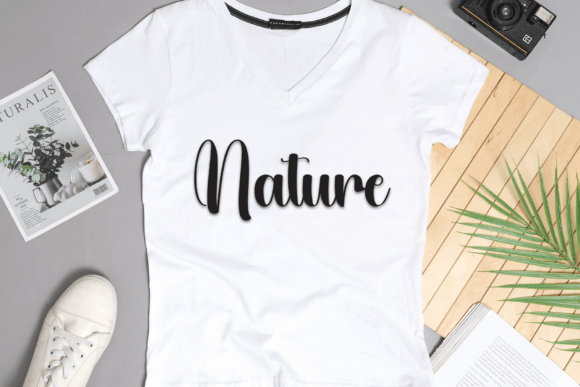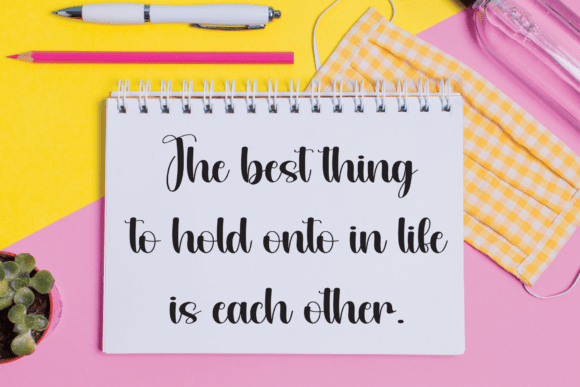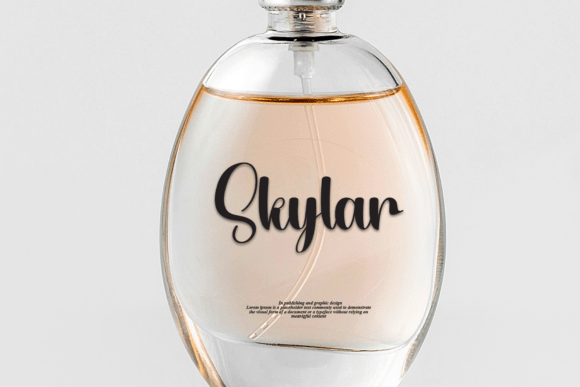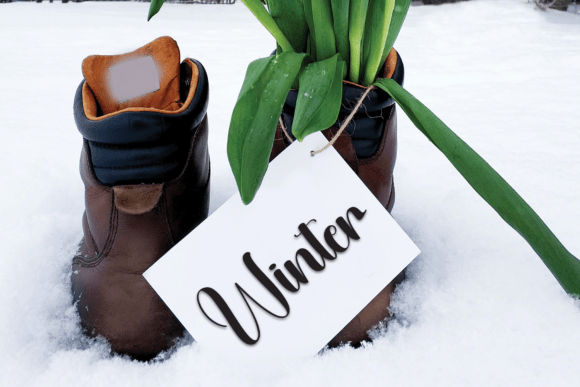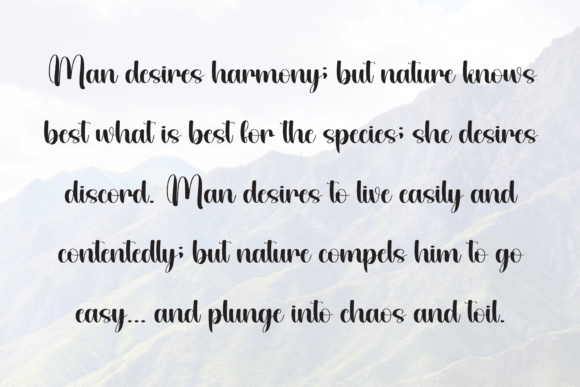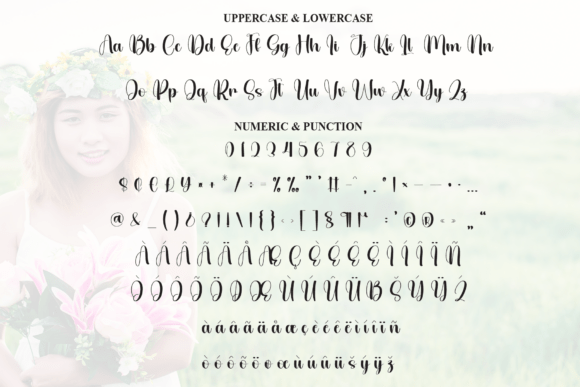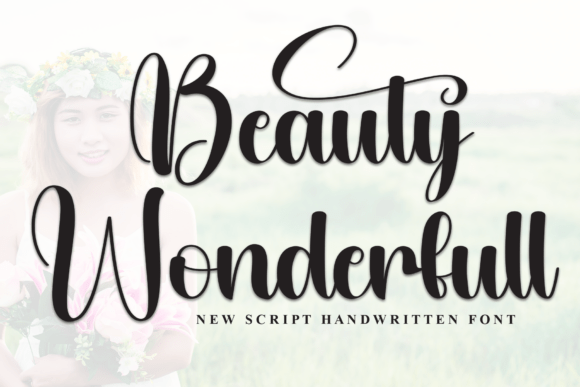
Introducing Beauty Wonderful Font: The Sweet and Playful Script Font for Your Creative Projects
Are you looking for a font that can add a touch of warmth and sweetness to your designs? Look no further than the Beauty Wonderful Font, a charming handwritten script font that is perfect for a variety of creative projects. With its delightful quirks and playful vitality, this font is sure to sparkle in any design, making it a great choice for romantic wedding invitations, heartfelt cards, and more.
The Charm of Handwritten Script Fonts
Handwritten script fonts have a way of adding a personal touch to any design. They evoke a sense of warmth and personality that is hard to replicate with more formal fonts. The Beauty Wonderful Font takes this to the next level with its unique blend of sweetness and playfulness. Each letter is carefully crafted to create a sense of movement and fluidity, making it perfect for designs that require a touch of elegance and whimsy.
Perfect for Romantic Wedding Invitations
When it comes to wedding invitations, you want a font that sets the tone for the special day. The Beauty Wonderful Font is perfect for romantic wedding invitations, with its elegant and playful vibe. It’s a great way to add a touch of personality to your invitations and make them stand out. Plus, its handwritten feel makes it perfect for couples who want to add a personal touch to their wedding stationery.
Adding a Touch of Fun to Your Designs
One of the best things about the Beauty Wonderful Font is its ability to add a touch of fun to your designs. Whether you’re creating a heartfelt card or a playful poster, this font is sure to bring a smile to your audience’s face. Its playful quirks and delightful imperfections make it perfect for designs that require a touch of whimsy and personality.
Why Designers and Crafters Love This Font
Designers and crafters love the Beauty Wonderful Font for its versatility and charm. It’s a font that can be used in a variety of creative projects, from wedding invitations to social media graphics. Plus, its handwritten feel makes it perfect for designers who want to add a personal touch to their designs. With this font, you can create designs that are truly unique and reflective of your personal style.
Key Features of the Beauty Wonderful Font
- Handwritten script font: Each letter is carefully crafted to create a sense of movement and fluidity.
- Sweet and playful vibe: Perfect for romantic wedding invitations, heartfelt cards, and more.
- Delightful quirks and imperfections: Adds a touch of personality and whimsy to your designs.
- Versatile: Can be used in a variety of creative projects, from digital designs to print materials.
Tips for Using the Beauty Wonderful Font
Here are a few tips for using the Beauty Wonderful Font in your designs:
- Pair it with a simple font: Let the Beauty Wonderful Font be the star of the show by pairing it with a simple font.
- Use it for headings and titles: This font is perfect for headings and titles, where you want to make a statement.
- Add some color: The Beauty Wonderful Font looks great with bright and bold colors, so don’t be afraid to add some personality to your design.
The Beauty Wonderful Font is a charming handwritten script font that is perfect for designers and crafters who want to add a touch of sweetness and playfulness to their designs. With its delightful quirks and imperfections, this font is sure to sparkle in any design. Whether you’re creating romantic wedding invitations, heartfelt cards, or playful posters, this font is sure to elevate your design and make it truly special.